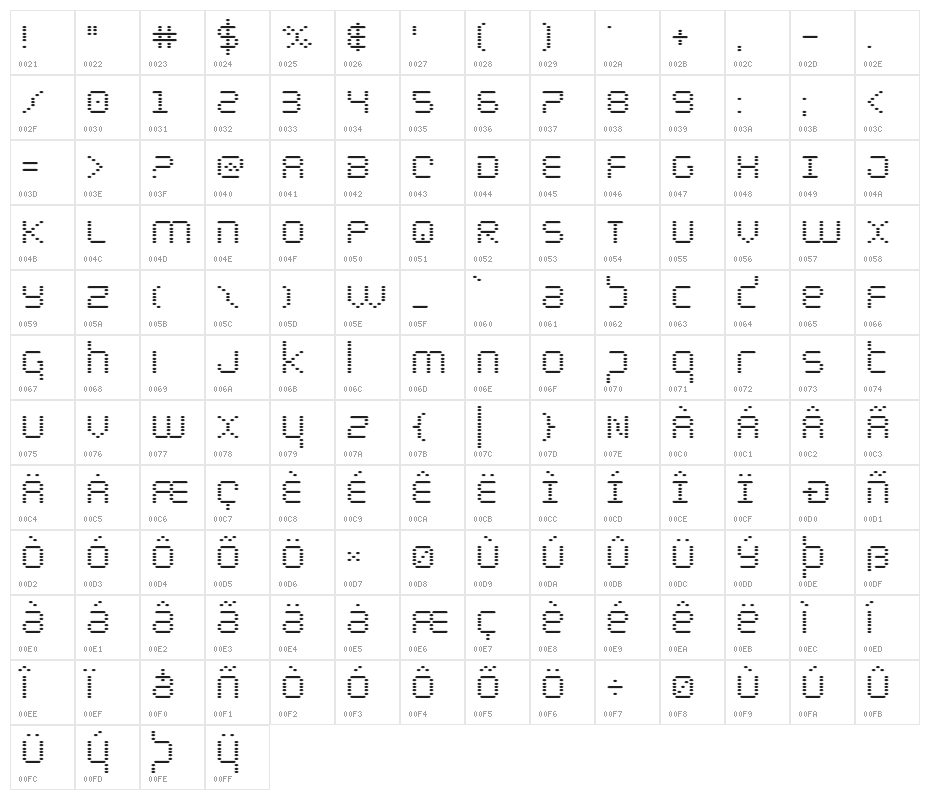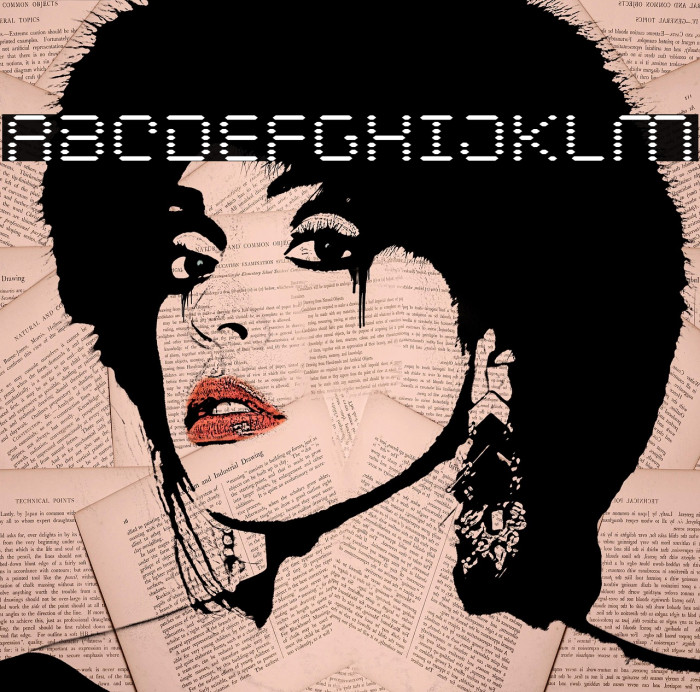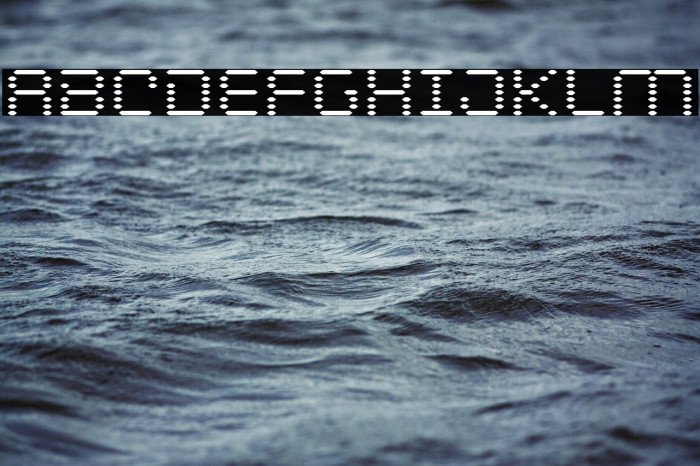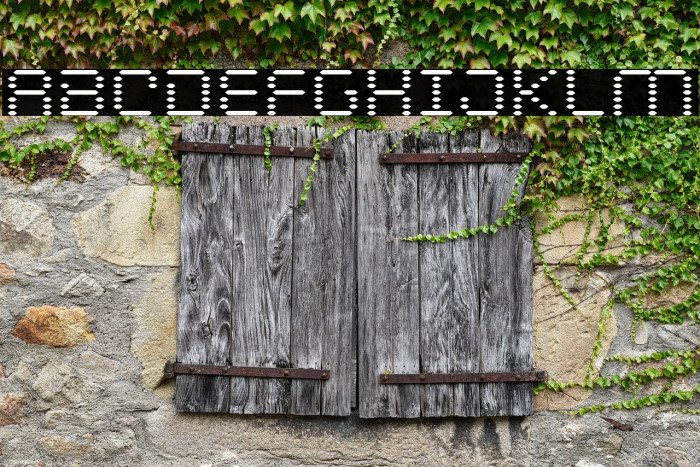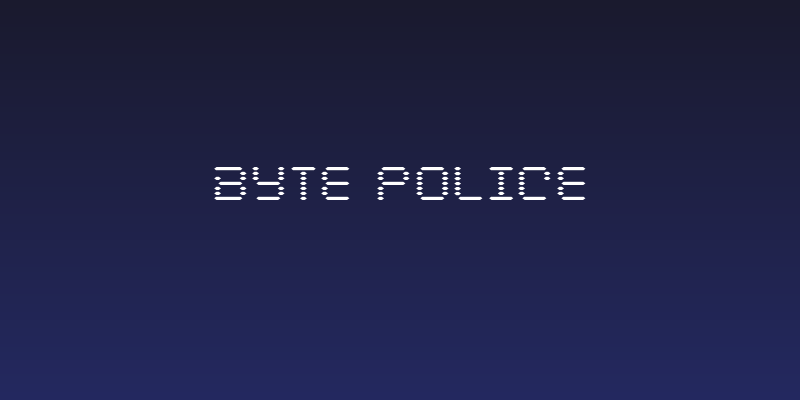
Byte Police Font
Byte Police Description
This font features a unique dot-matrix style, reminiscent of digital displays and retro computing. Each character is constructed from a series of evenly spaced dots, creating a pixelated appearance that evokes a sense of nostalgia for early digital typography. The uniformity in dot size and spacing gives the font a clean and structured look, while the rounded edges of the dots add a touch of softness to the otherwise mechanical aesthetic. This design is particularly effective for conveying a futuristic or technological theme, making it suitable for projects that aim to capture the essence of the digital age. The font maintains legibility despite its unconventional style, ensuring that each letter and number is easily distinguishable. Special characters are also included, adhering to the same dot-matrix format, which enhances the font's versatility and usability across various applications.
| Overall Style | Retro, Digital |
| Use Case | Logos, Headlines, Posters |
| Proposed Projects | Ideal for tech-themed designs, retro digital displays, video game graphics, and futuristic branding. |